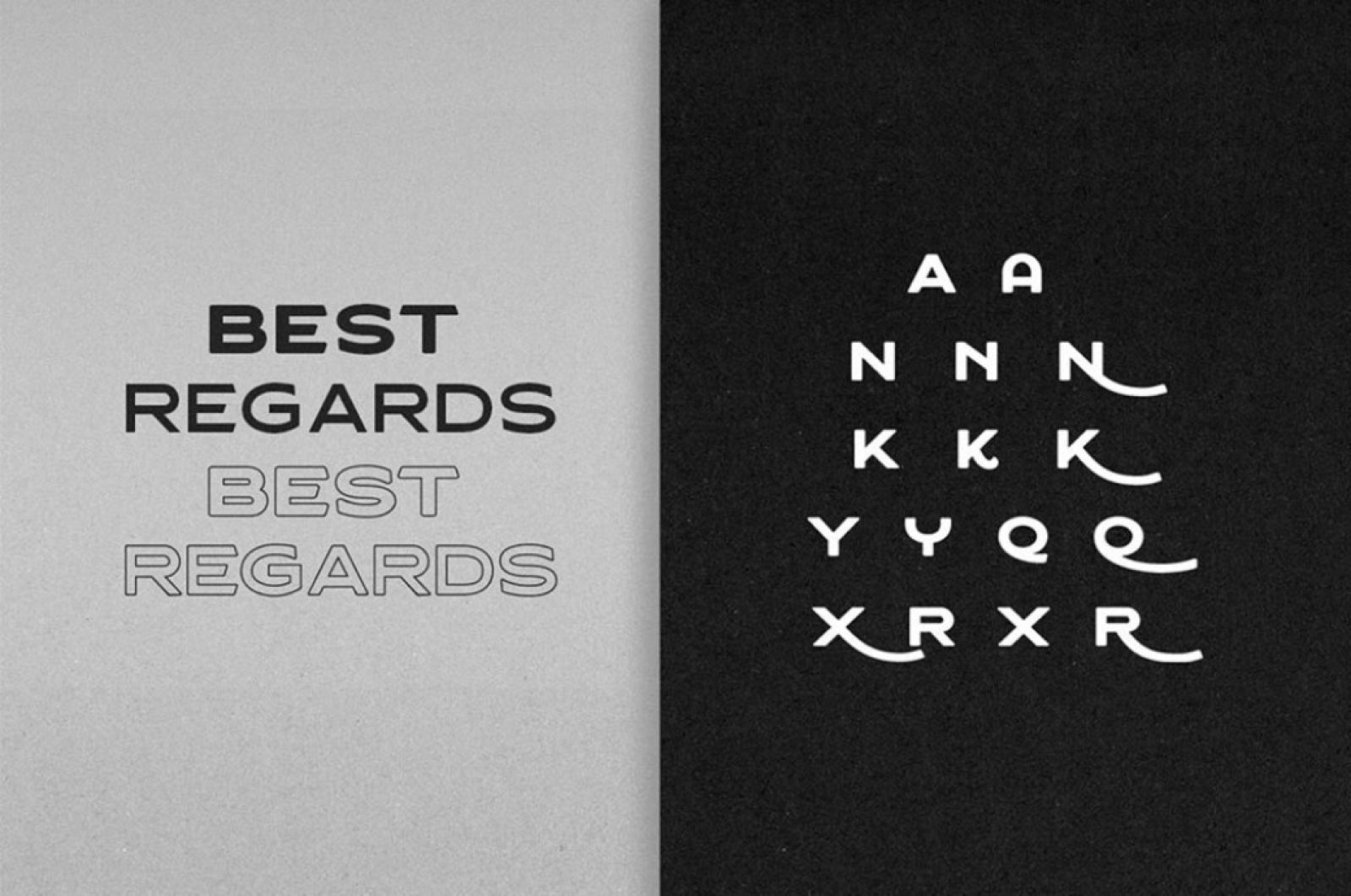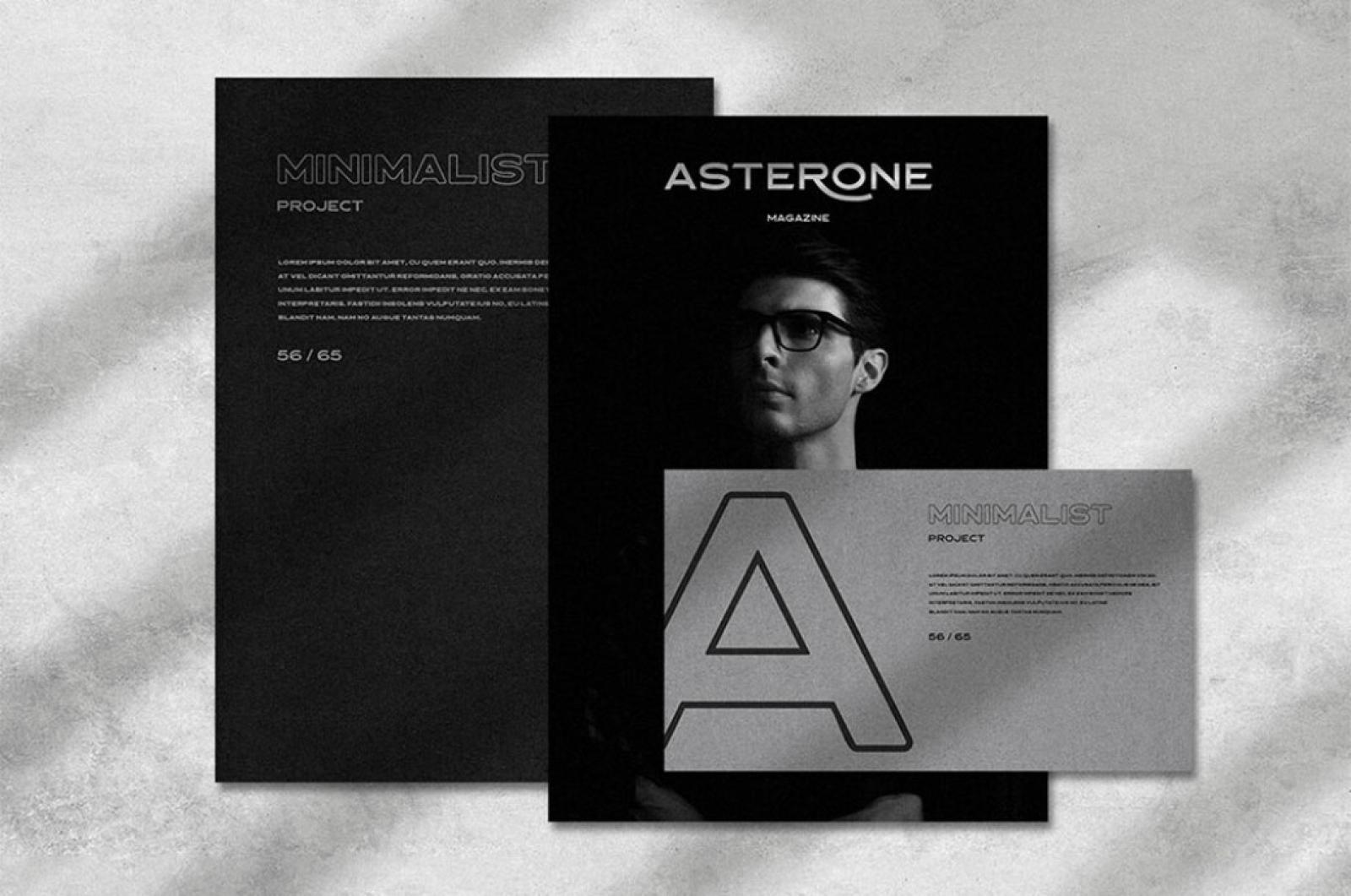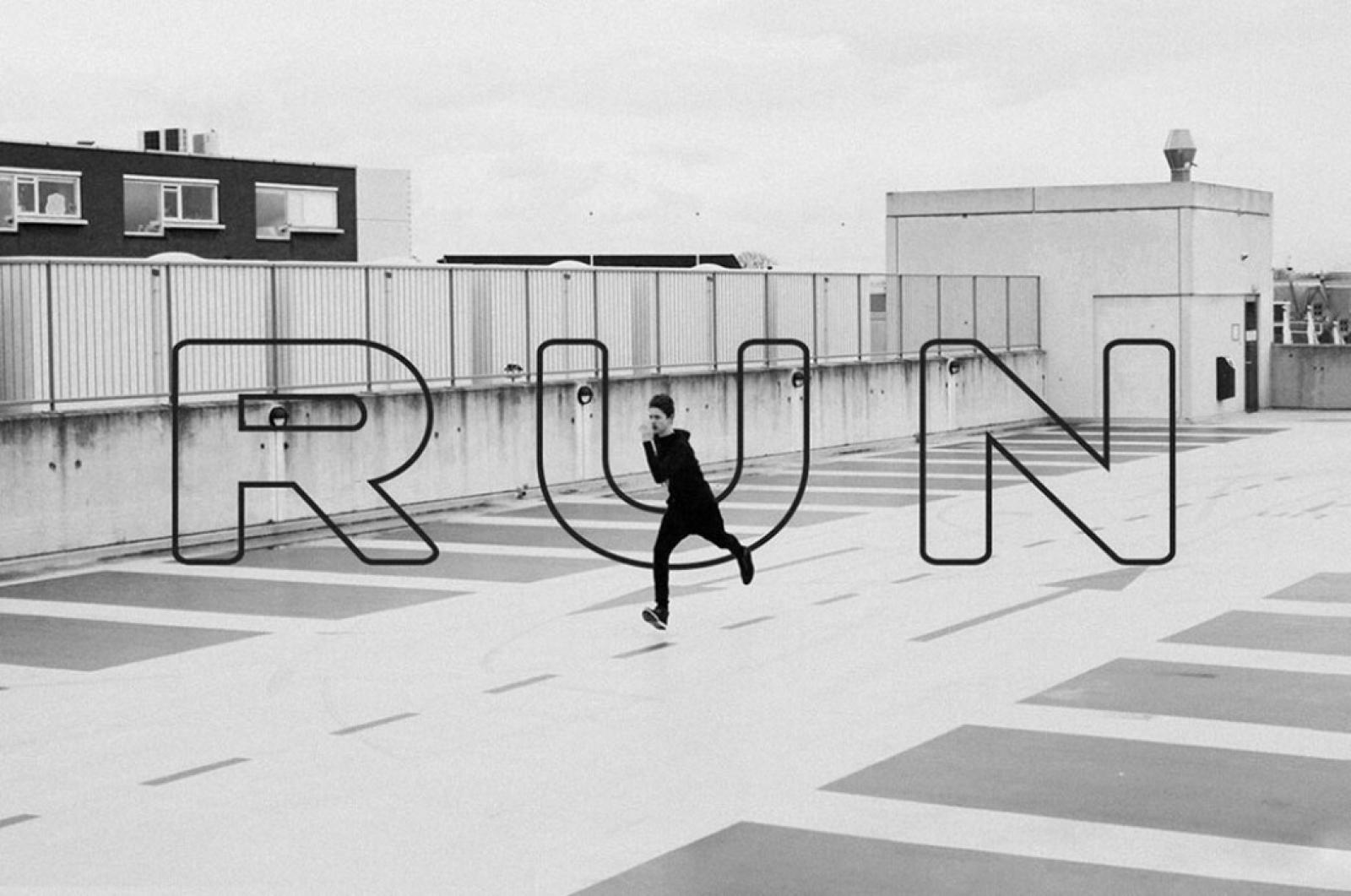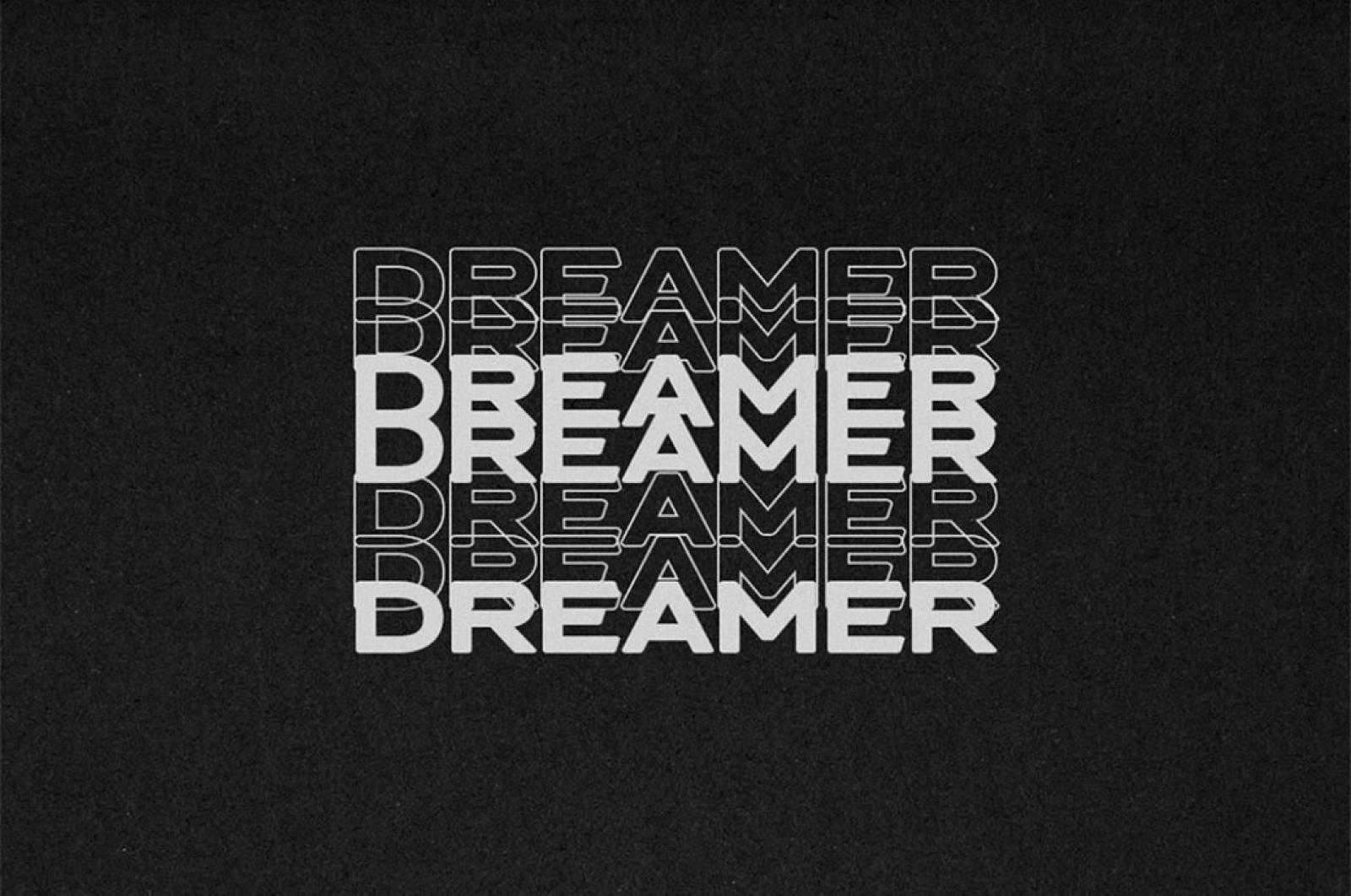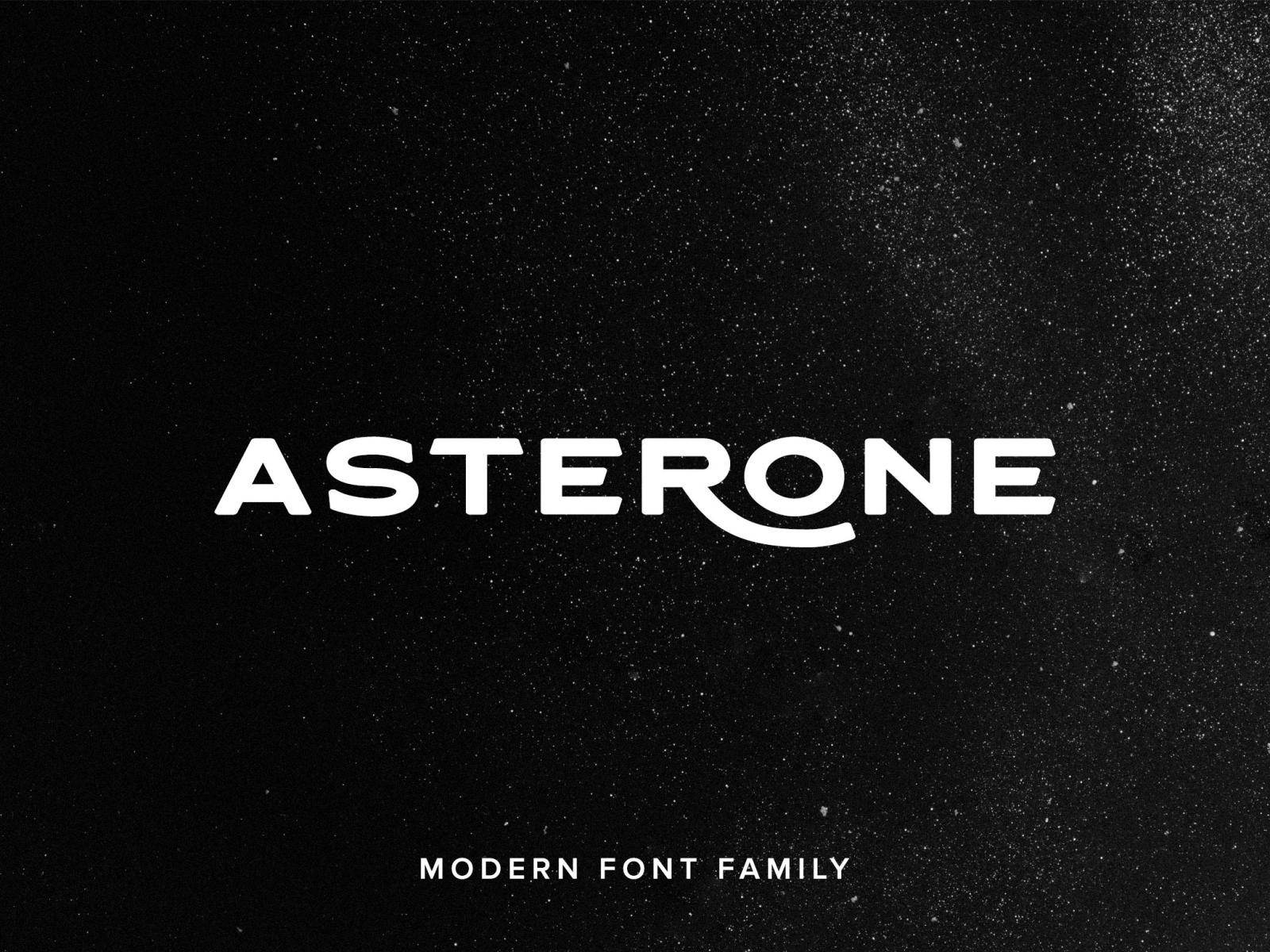
Asterone Font Family
The message conveys a more powerful meaning if it's expressed via the right typeface. Reserved and sharp display font you're about to meet is related to the category of impressive font families.
This modern font family works perfectly for those who need a typeface for headline, logotype, apparel, invitation, branding, packaging, or advertising. This typeface comes with uppercase, lowercase, punctuation, symbols, numerals, ligatures, and unique stylistic alternates, highlighting the expressiveness. Every version of this font family deserved to be applied to your graphic design works!